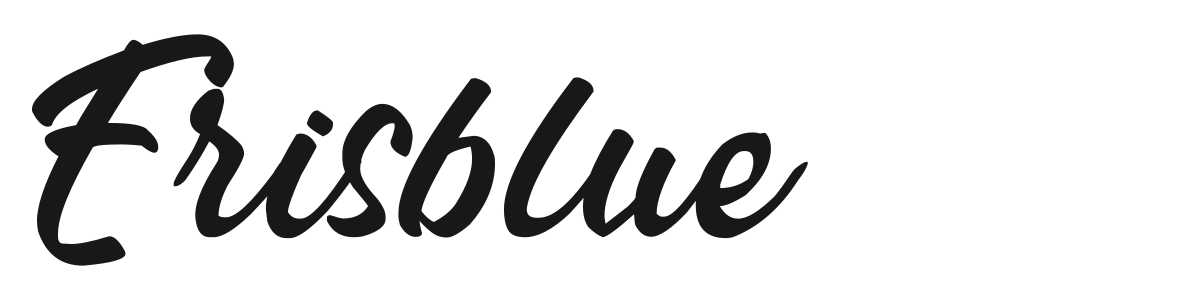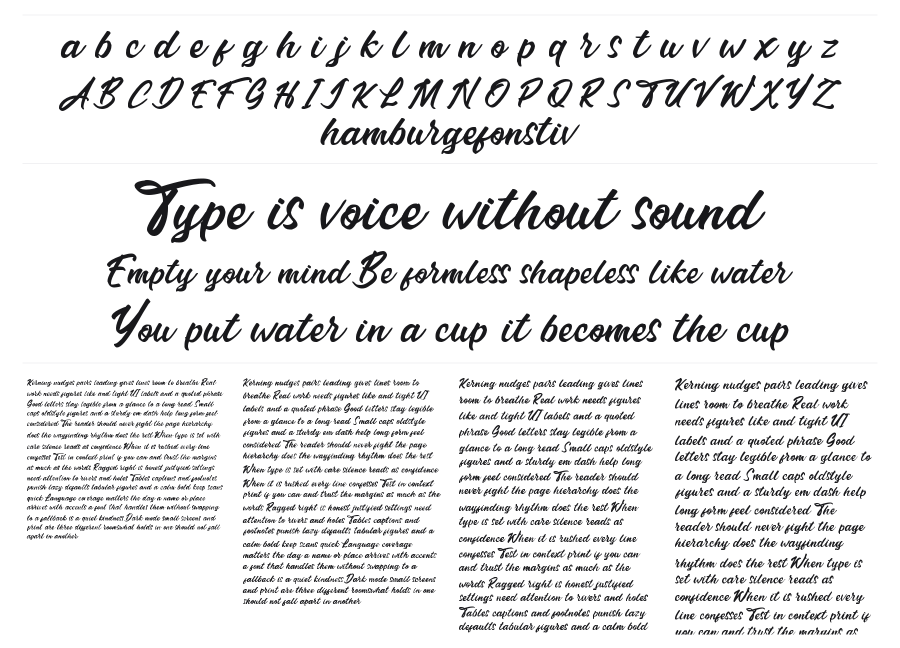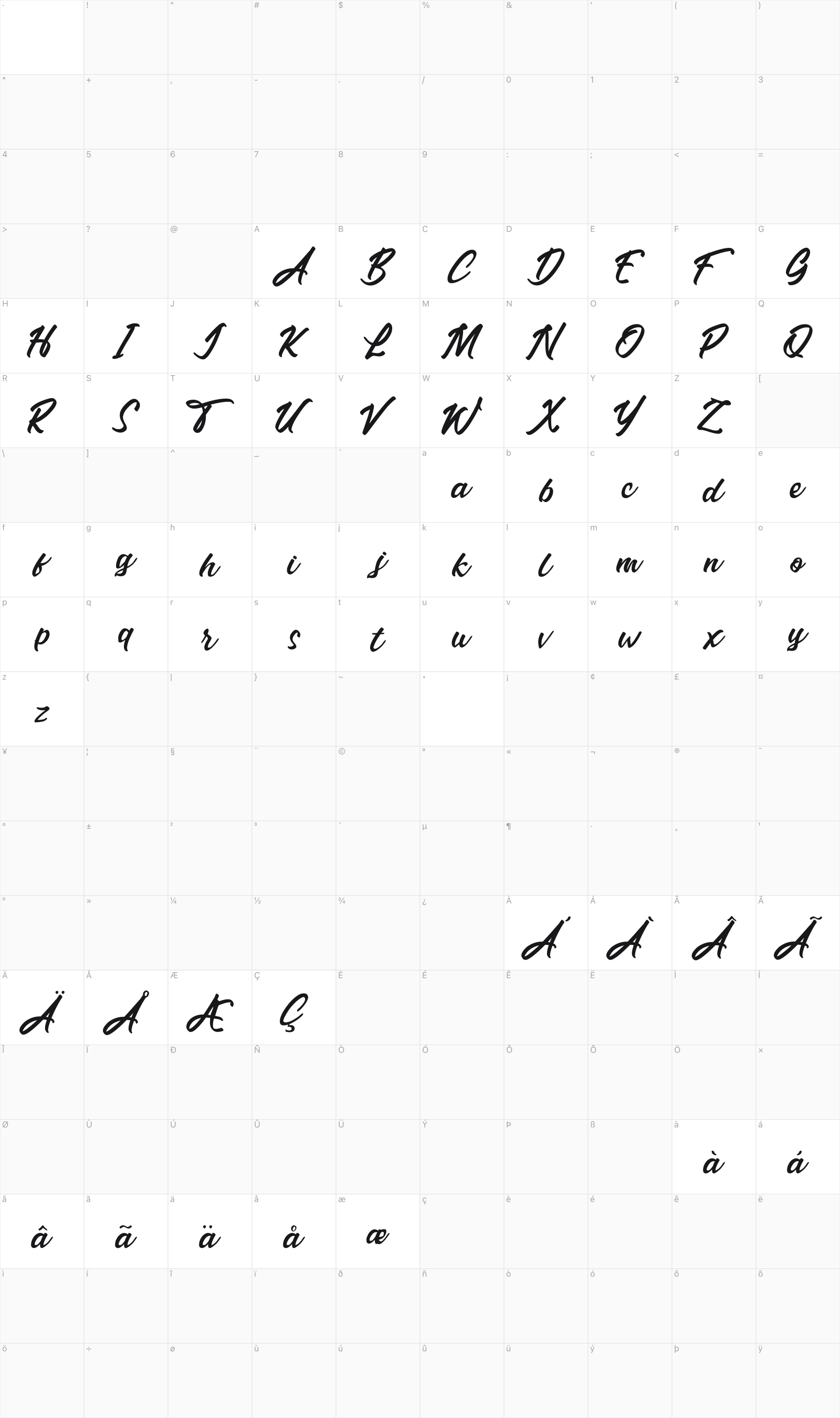
Erisblue
Erisblue is a bold casual script with smooth, flowing connections and confident thick-to-thin stroke contrast. The looped ascenders and rounded forms give it a lively, handcrafted energy without feeling rough or unpolished. It works well at large sizes for logos, packaging, and anything that needs a personal, expressive touch.